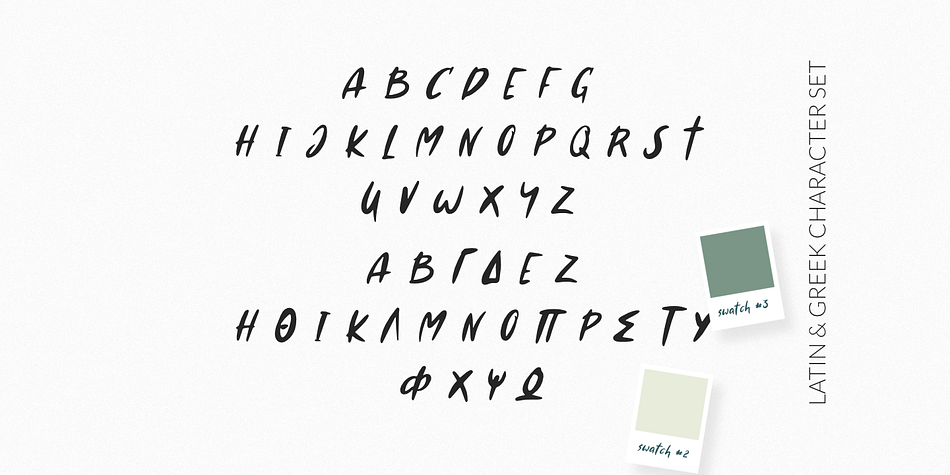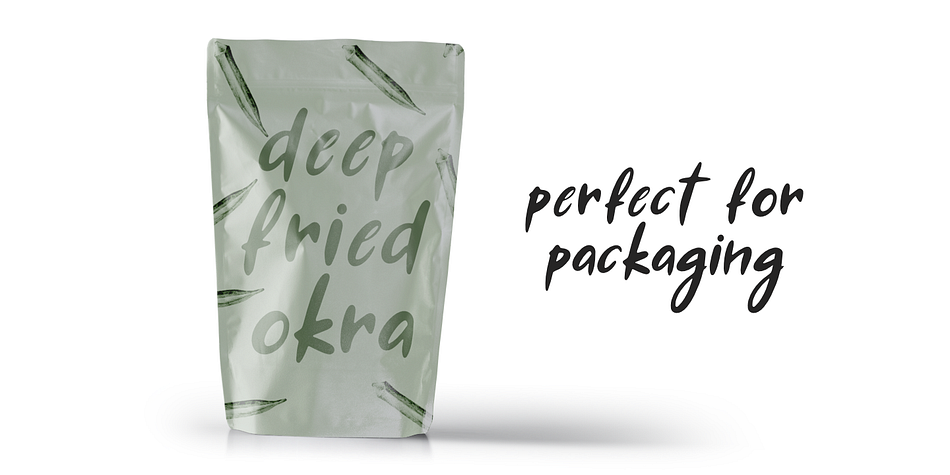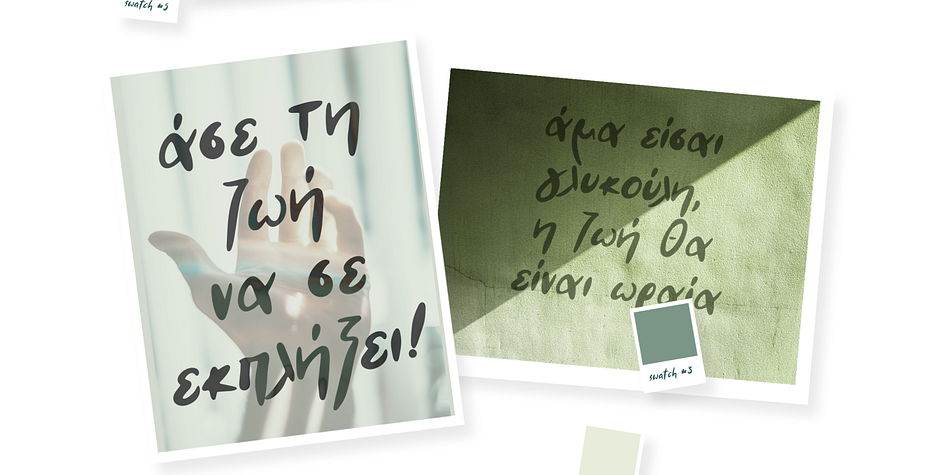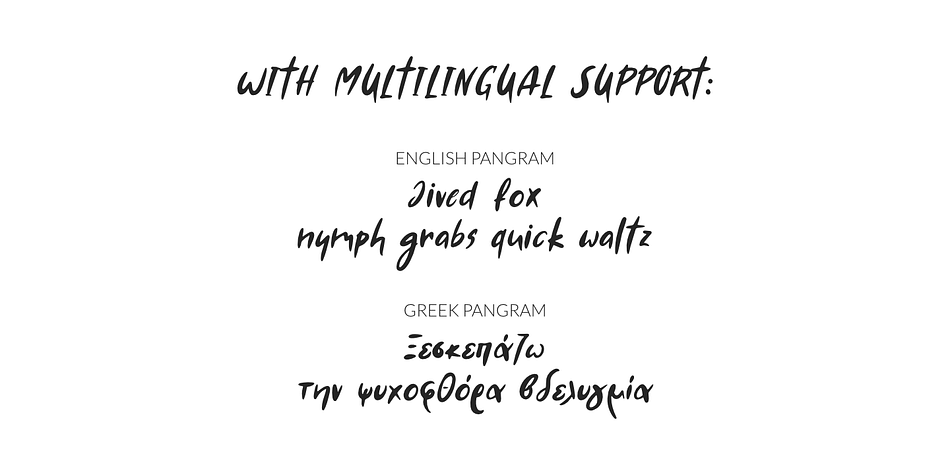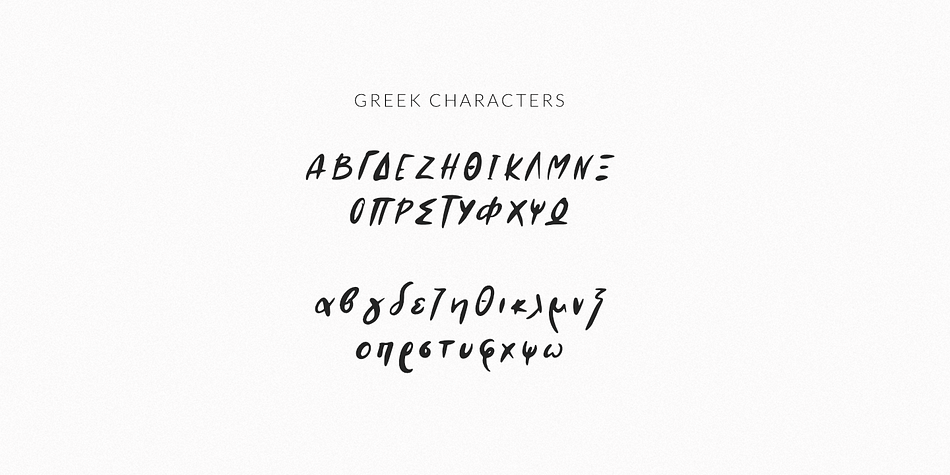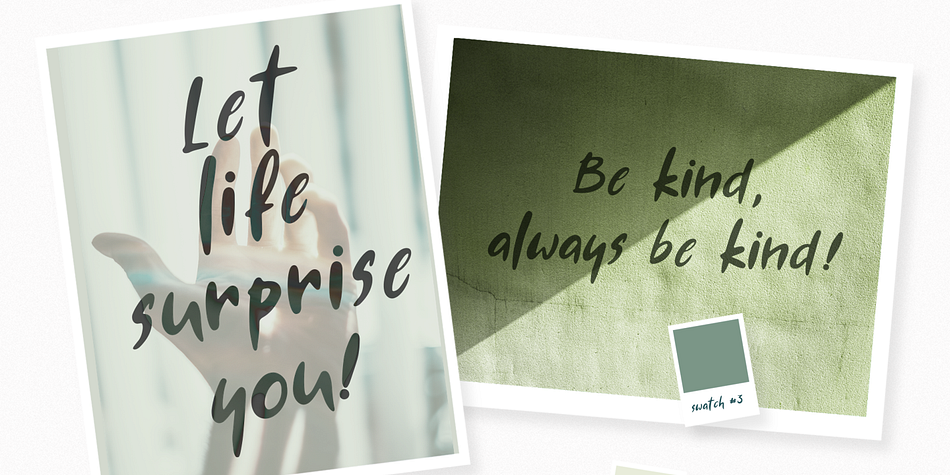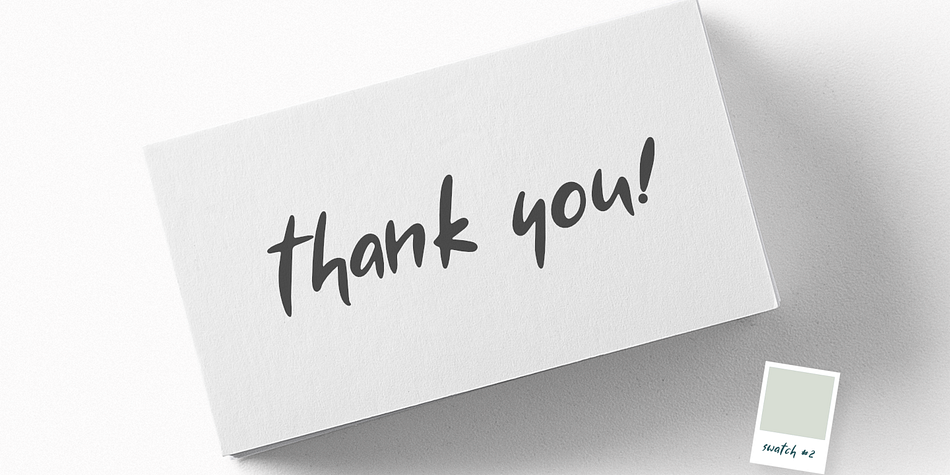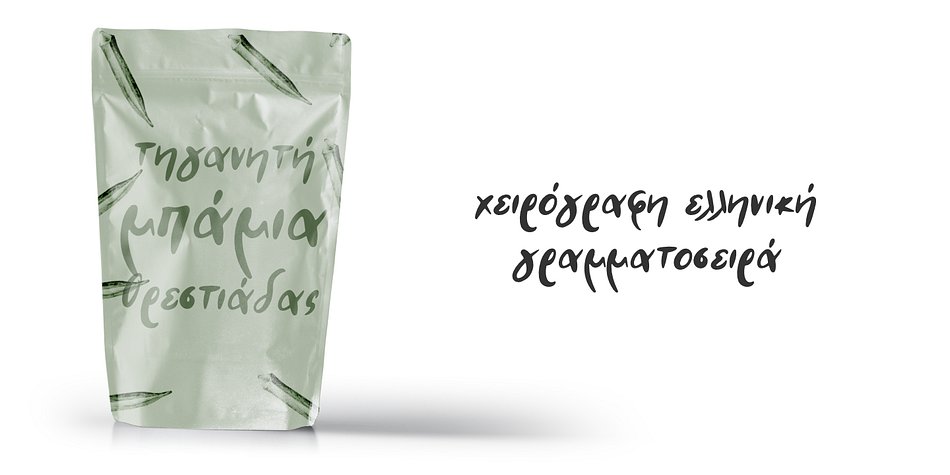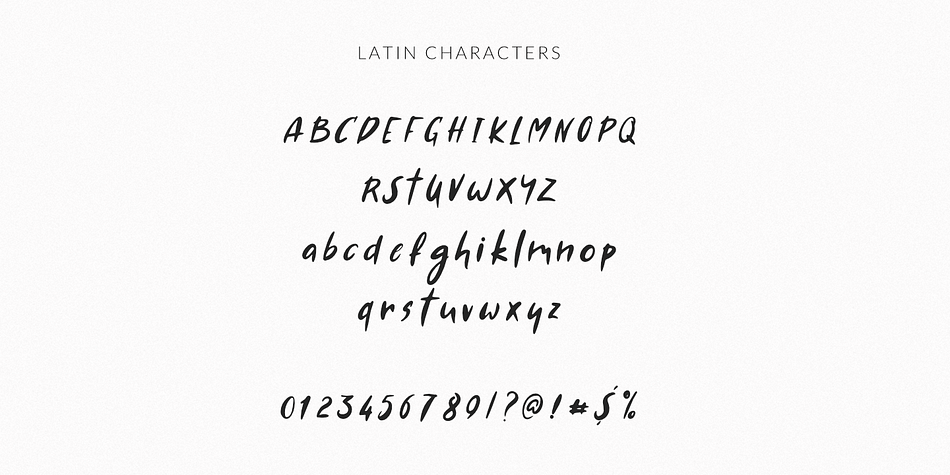
AMA is a hand display and hand drawn font published by Konstantina Louka.
AMA Greek and Latin Font
AMA Greek and Latin Font is a hand-made display font. Of course, the hand-written font supports a full set of Greek characters and an extended Latin character set with diacritics. In fact, this typeface can be a mighty companion to your next graphic design project.
If you are searching for a cute fun multilingual font, then check AMA. From “hand-written” Instagram quotes to product packaging, merchandise, logotype and branding projects, this font is so versatile that it can cover them all. Also, you can use it on social media content, for branding, poster design, for “hand-written” quotes and any other kind of product packaging.
Extended Latin Characters
Greek Characters
Numerals